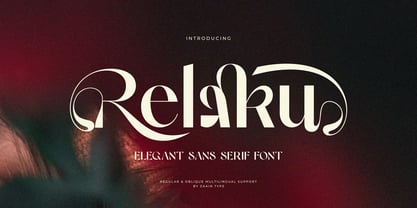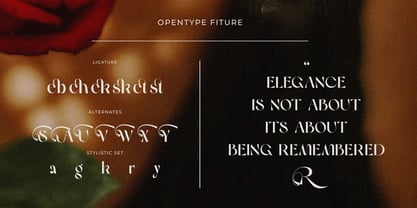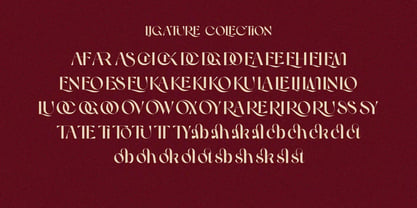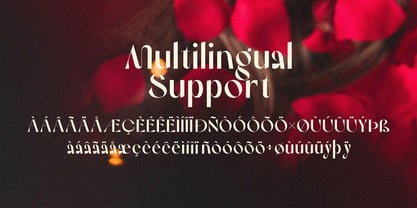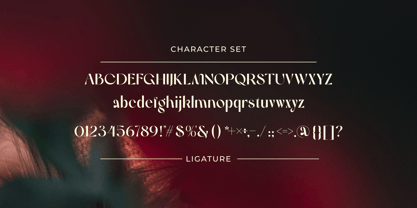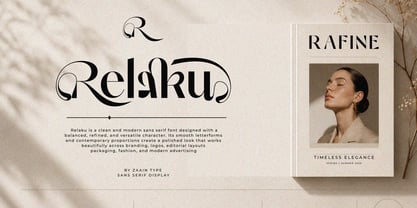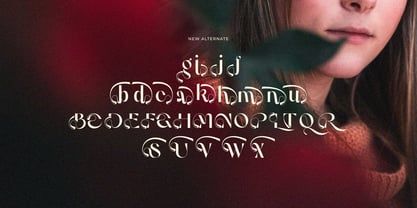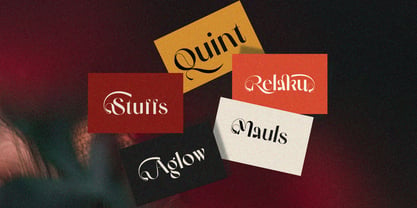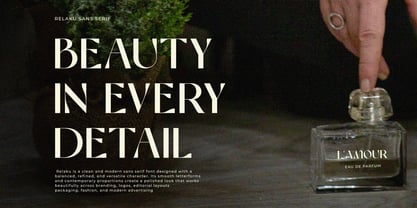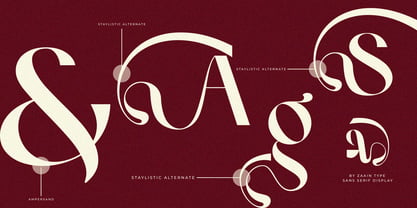
Relaku
La familia tipográfica Relaku fue diseñada por Ju Naen y publicada por Zaain Type. Relaku contiene 2 estilos y opciones de paquete familiar. Más información sobre esta familia
Relaku is a clean and modern sans serif font designed with a balanced, refined, and versatile character. Its smooth letterforms and contemporary proportions create a polished look that works beautifully across branding, logos, editorial layouts, packaging, fashion, and modern advertising.
Simple yet distinctive, Relaku brings a fresh and professional touch to both minimalist and creative designs